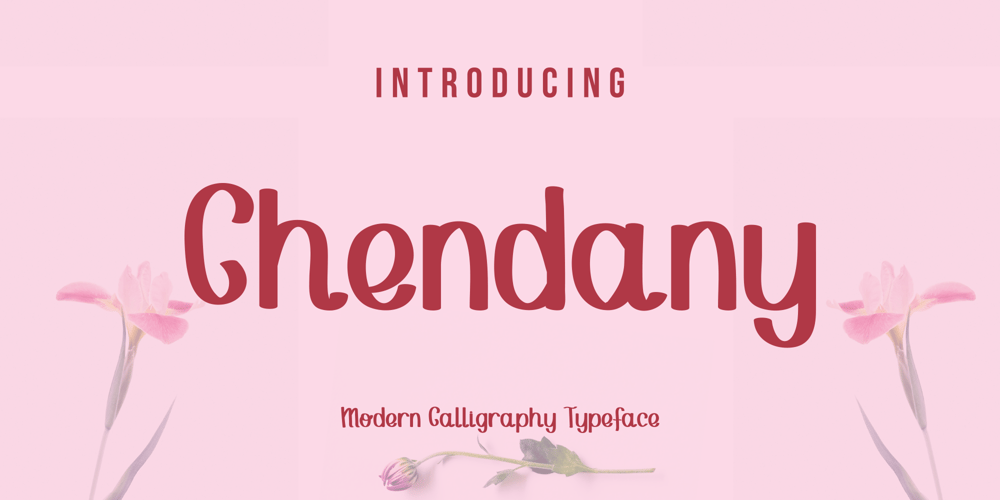
Chendany
Chendany font
Chendany Font Family was designed by Yahhya Anas Atok Illah and published by WNGSTD. Chendany contains 1 styles and family package options. Chendany is a friendly, neat, and cute-looking handwritten font. Not too thin and not too thick, balanced and varied, this font was designed to enhance the beauty of your projects.